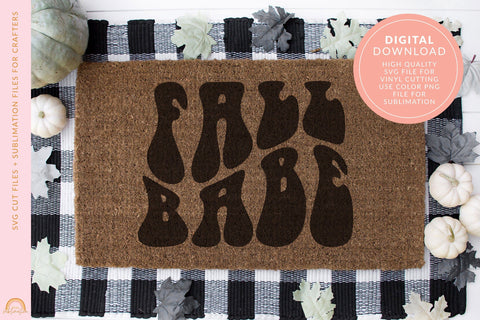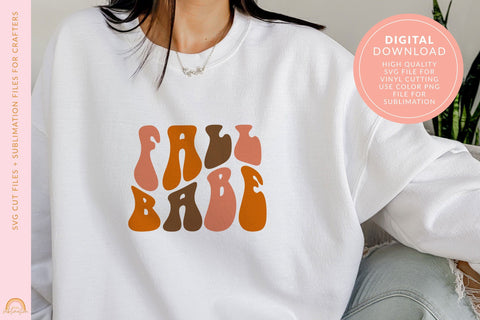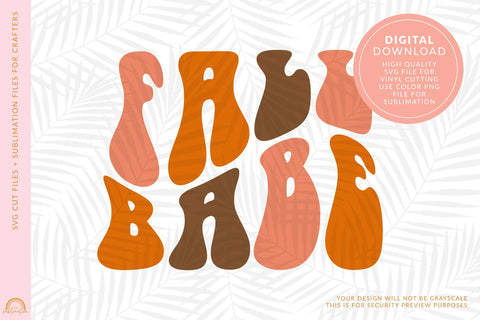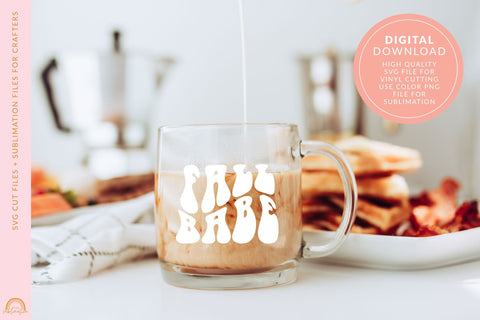
Fall SVG File for Autumn Fall Babes Design HM
This cute fall SVG file features the phrase Fall Babe and is designed in a groovy font is a great way to cozy up to Autumn.